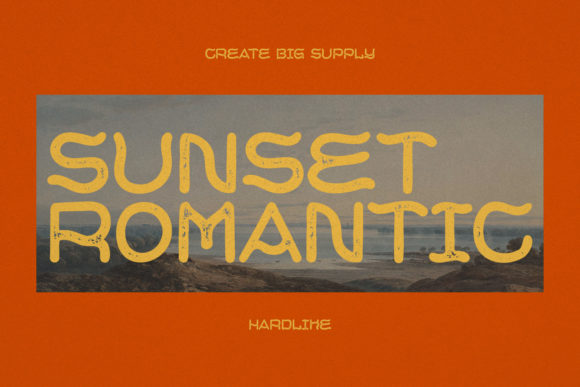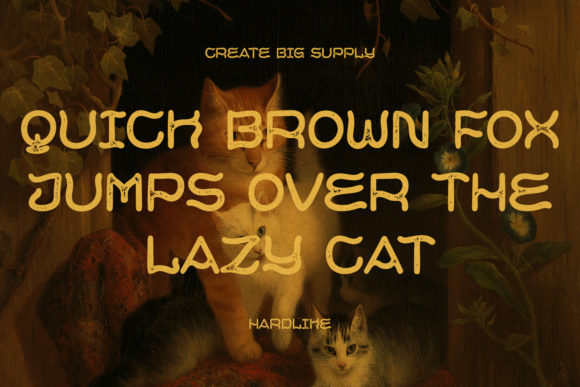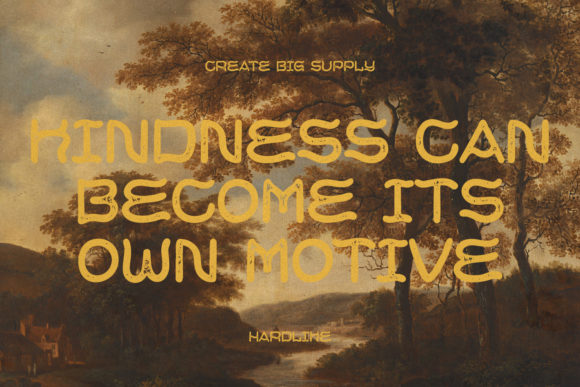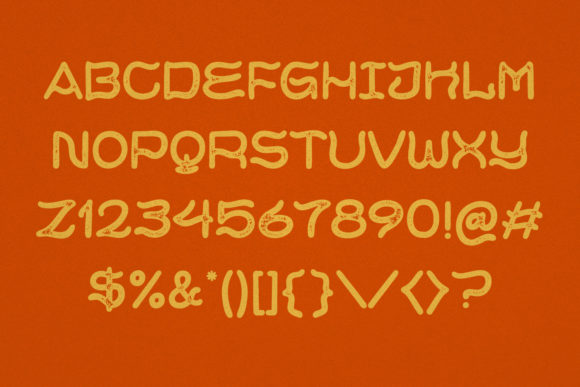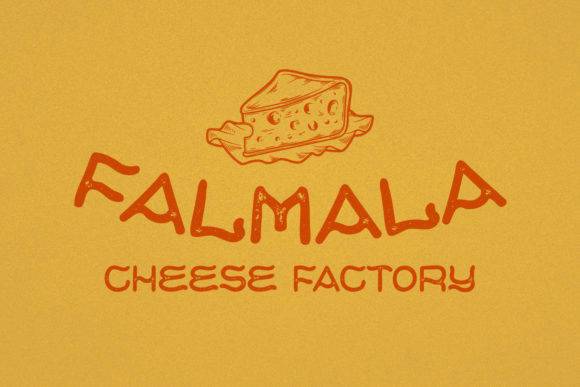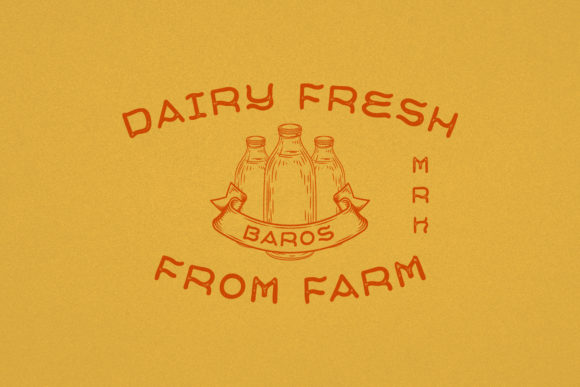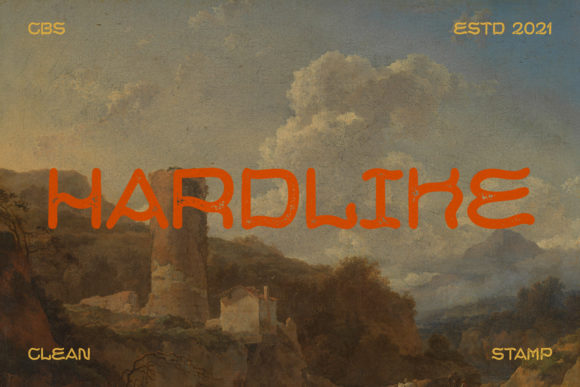
Introducing Hardlike Font: The Ultimate Clean and Bold Display Font
Are you tired of using the same old fonts for your designs? Look no further! Hardlike Font is here to revolutionize your creative projects with its clean, bold, and eye-catching style. This versatile display font is perfect for a wide range of applications, from vintage and retro designs to bohemian-inspired creations, artistic projects, and beyond.
What is Hardlike Font?
Hardlike Font is a meticulously crafted display font that boasts a unique blend of cleanliness and boldness. Its striking appearance is accentuated by a cool stamp effect, giving it a distinctive edge that’s sure to make your designs stand out. Whether you’re a designer, crafter, or artist, Hardlike Font is an excellent addition to your typography arsenal.
Key Features of Hardlike Font
• Clean and Bold Design: Hardlike Font features a sleek, modern design that’s both clean and bold. Its crisp lines and well-defined letterforms make it perfect for creating eye-catching headlines and titles.
• Cool Stamp Effect: The font’s cool stamp effect adds a touch of ruggedness and texture, giving your designs a unique, hand-crafted feel.
• Versatile and Flexible: Hardlike Font is incredibly versatile and can be used for a wide range of projects, from vintage and retro designs to bohemian-inspired creations, artistic projects, and more.
• Easy to Read: Despite its bold design, Hardlike Font is surprisingly easy to read, making it perfect for use in titles, headings, and other display text.
Use Cases for Hardlike Font
Hardlike Font is an incredibly versatile font that can be used in a wide range of creative projects. Here are some ideas to get you started:
• Vintage and Retro Designs: Add a touch of nostalgia to your designs with Hardlike Font’s vintage-inspired style.
• Bohemian-Inspired Creations: Hardlike Font’s bold, eclectic style is perfect for bohemian-inspired designs, from posters to packaging.
• Artistic Projects: Whether you’re creating a painting, sculpture, or installation, Hardlike Font is a great choice for titling and signage.
• Branding and Advertising: Use Hardlike Font to create eye-catching logos, headlines, and ad copy that demands attention.
Tips for Using Hardlike Font
To get the most out of Hardlike Font, here are a few tips to keep in mind:
• Experiment with Colors: Hardlike Font looks great in a wide range of colors, from bold and bright to muted and pastel.
• Play with Texture: Add an extra layer of depth to your designs by combining Hardlike Font with different textures and patterns.
• Mix and Match: Don’t be afraid to combine Hardlike Font with other fonts and typography styles to create a unique look.
Hardlike Font is an exceptional display font that offers a unique blend of cleanliness, boldness, and versatility. Whether you’re a designer, crafter, or artist, this font is sure to become a staple in your creative toolkit. With its cool stamp effect, easy readability, and wide range of use cases, Hardlike Font is the perfect choice for any project that demands attention and style. So why wait? Download Hardlike Font today and unleash your creativity!